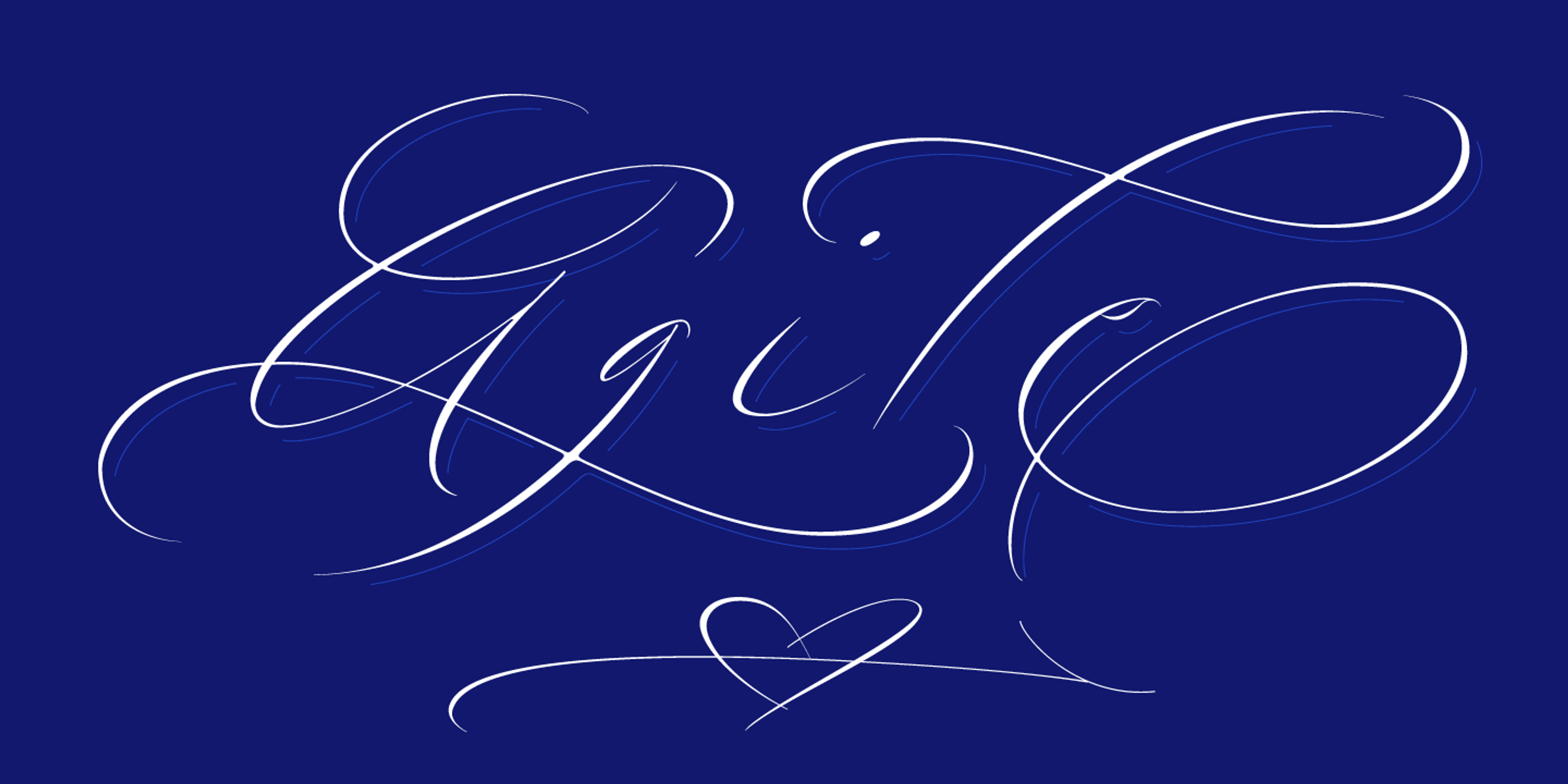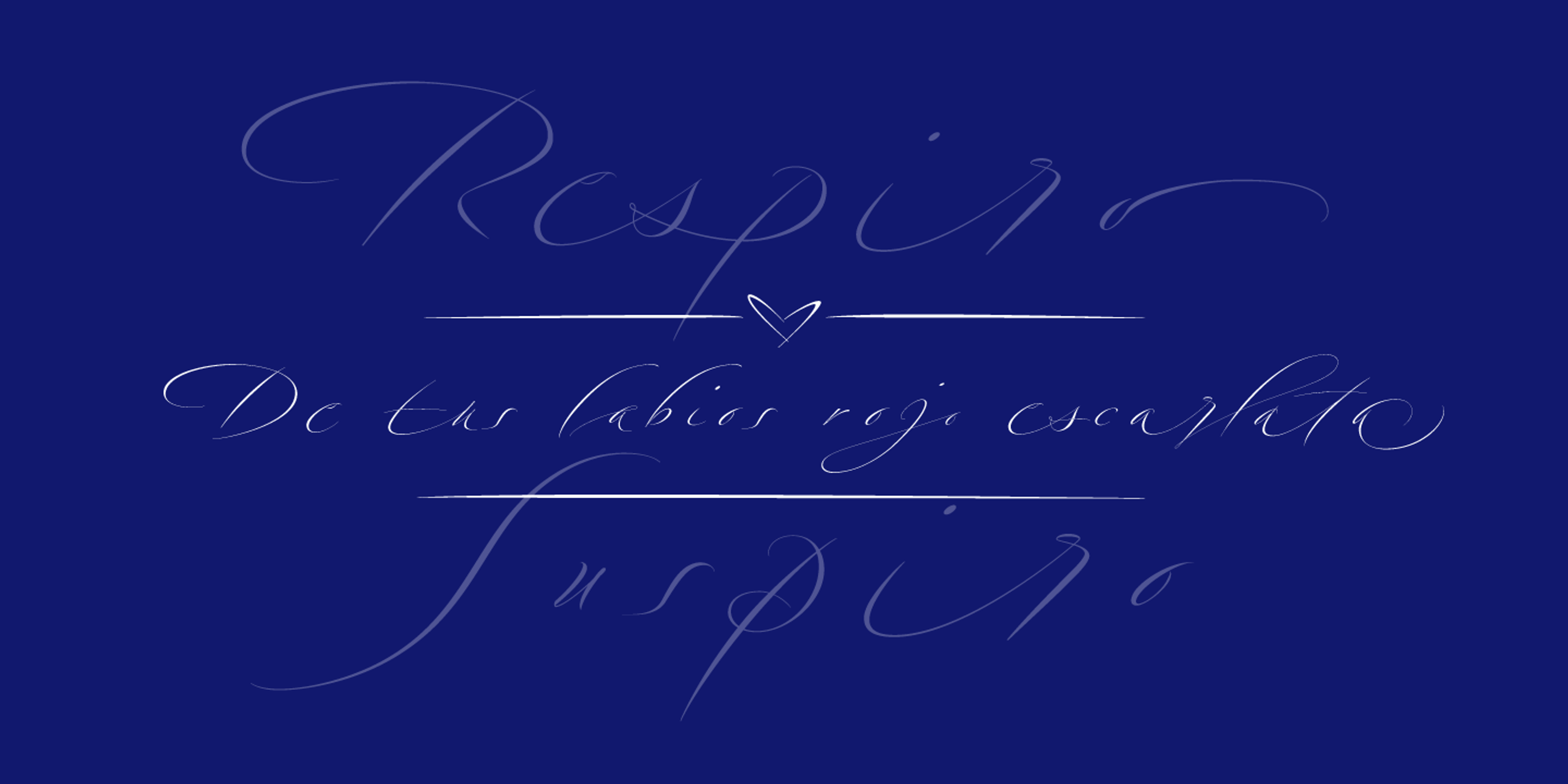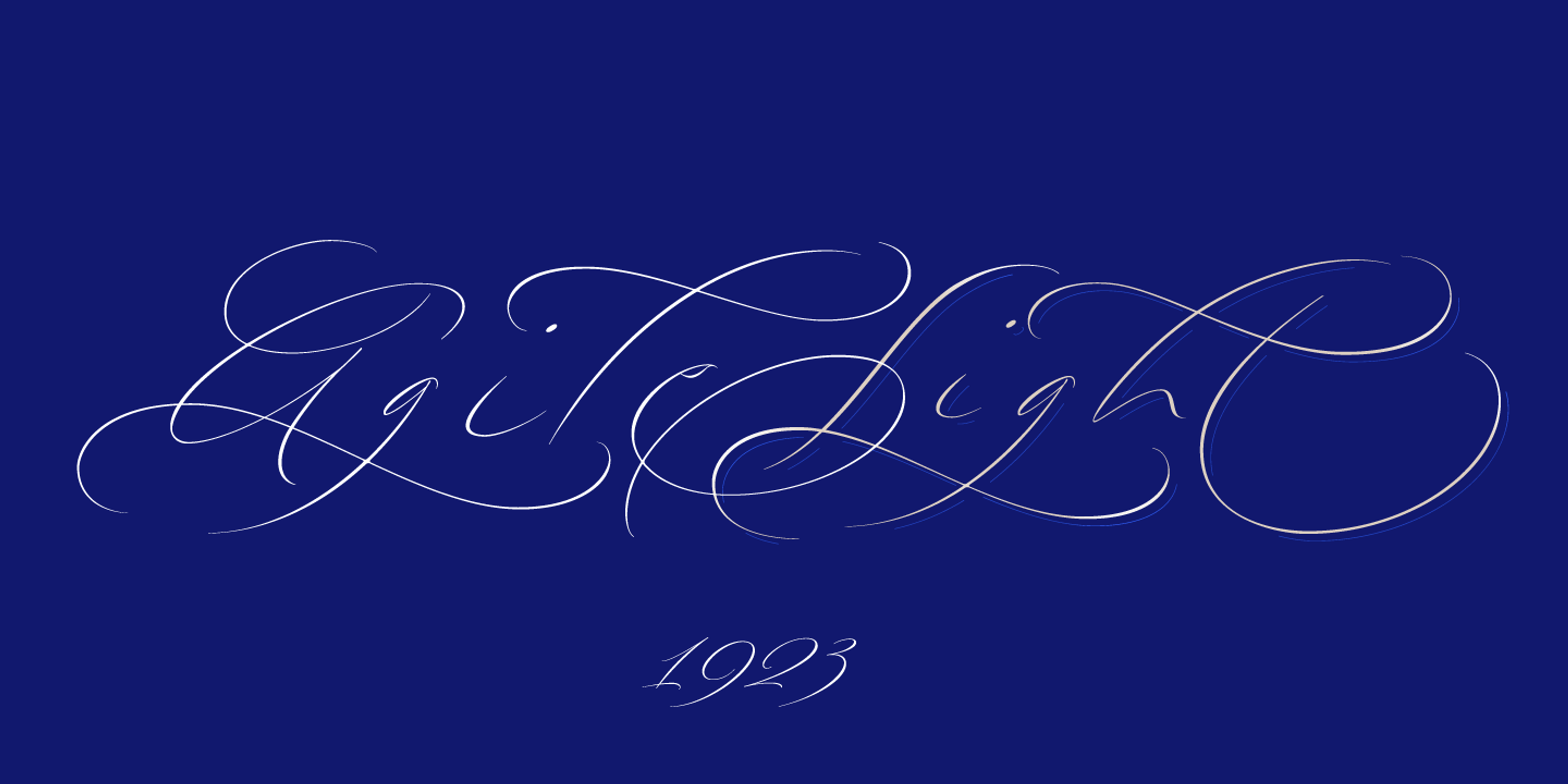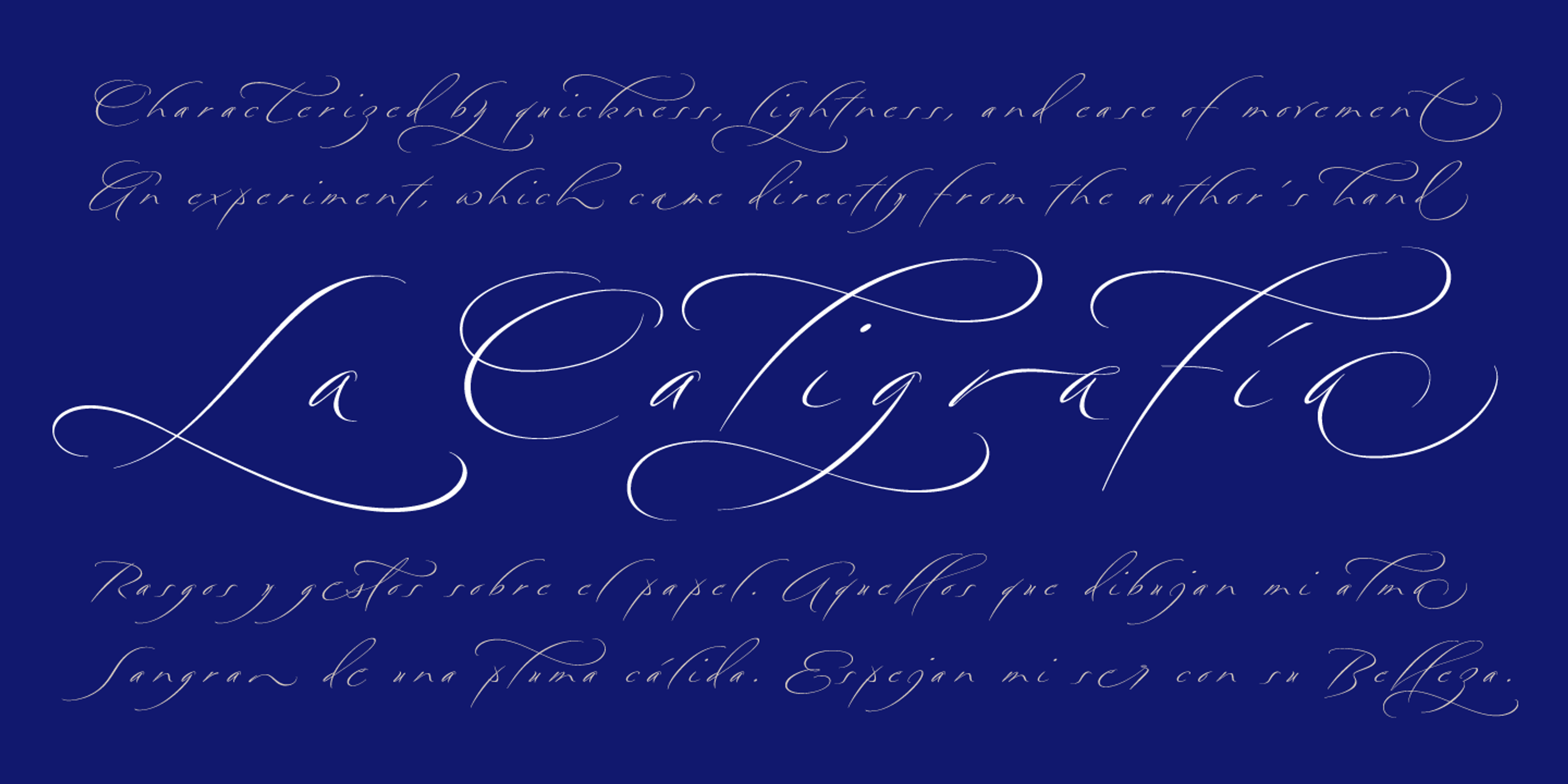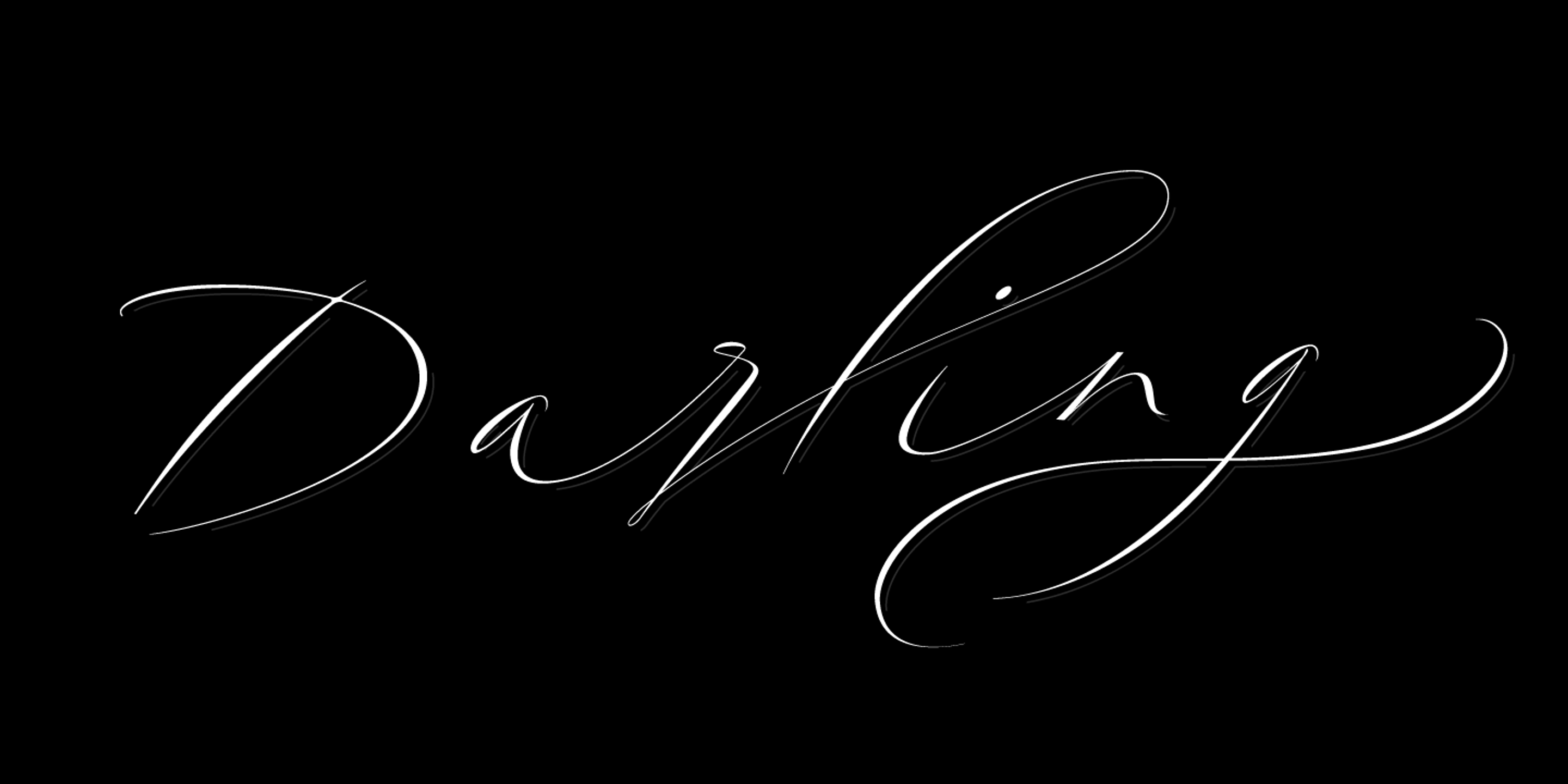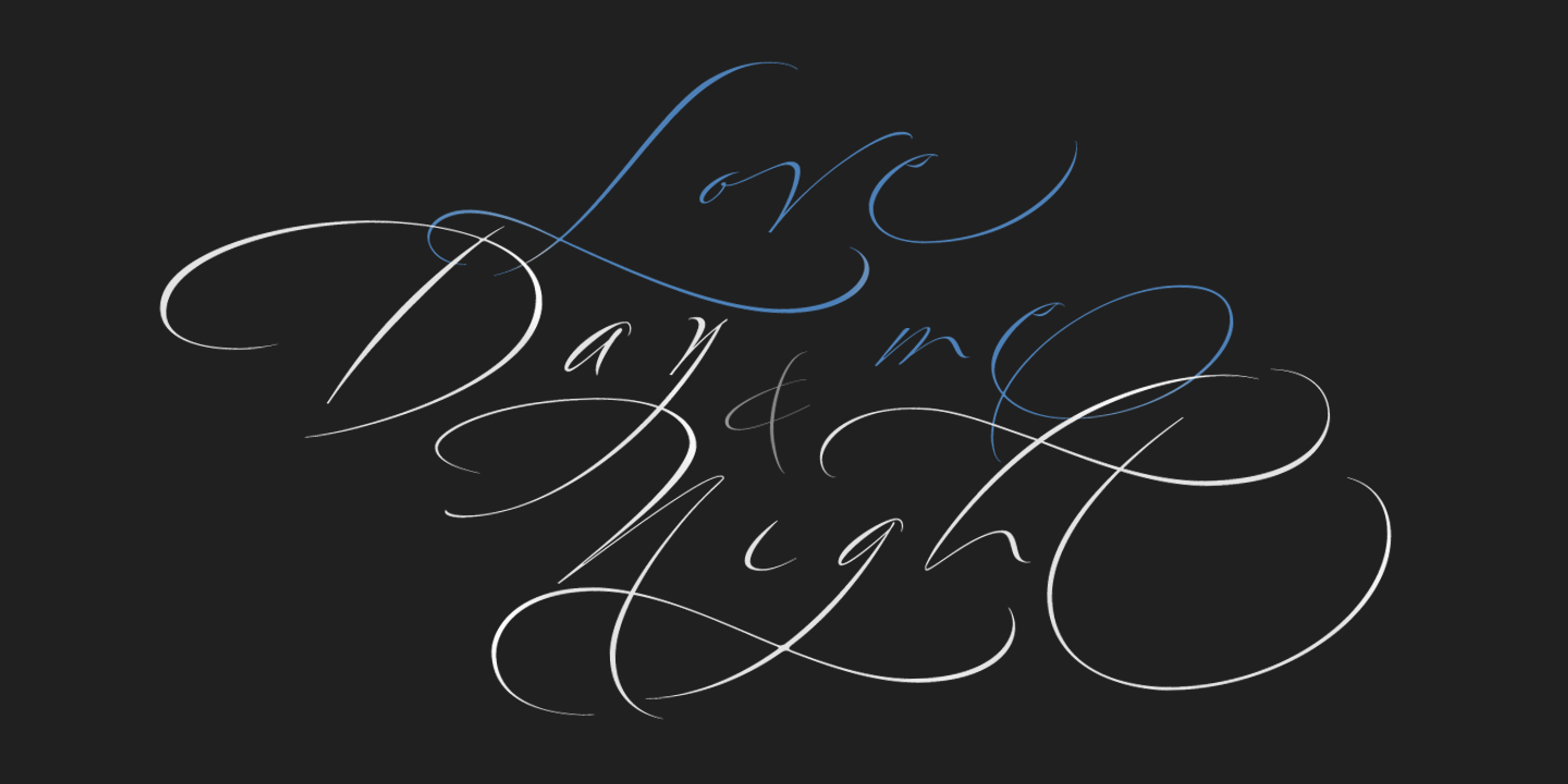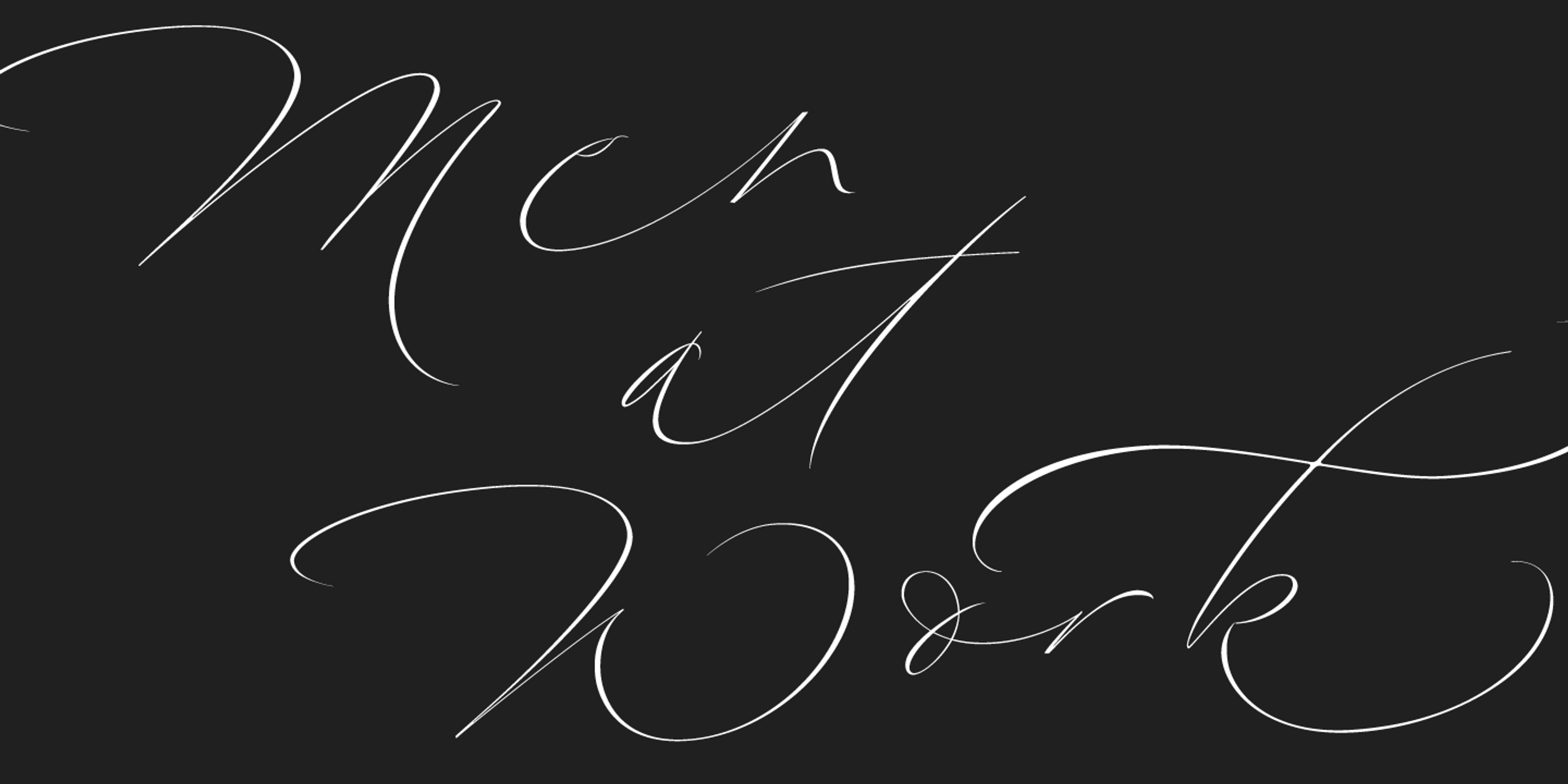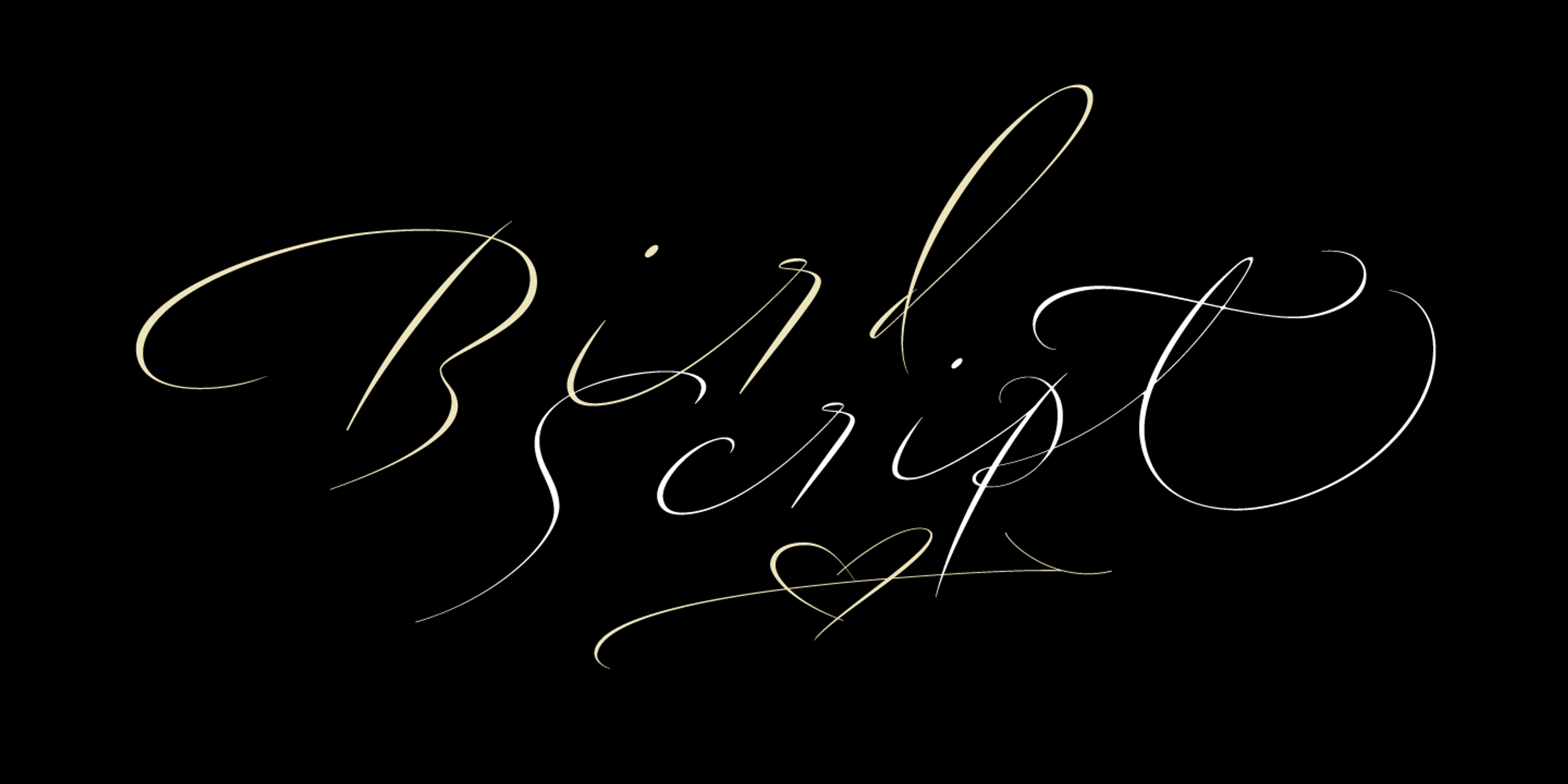
Bird Script Light
Bird Script Regular
Characterized by quickness, lightness, and ease of movement, Bird Script challenges many aspects of type design with panaché. It dances between the formal rules of typography and the artistic look of calligraphy. Bird Script is filled with the energy of gestural calligraphy, where every letter is never the same. When manipulating the pen, the letterer seeks the beauty of the differences and the grace of a confident execution. Choose Bird Script and let your words come alive.
- Common Ligatures
- Discretionary Ligatures
- Stylistic Alternates
- Stylistic Sets
- Swashes